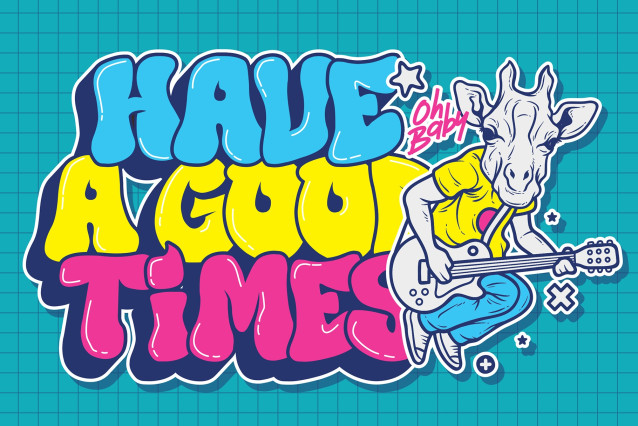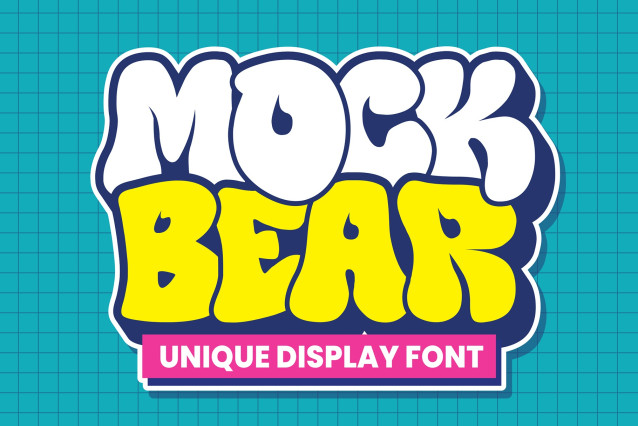
Mock Bear Font
Mock Bear Font – Unique Display Font was created: a bold, allcaps font that stands out with distinctive shapes and a powerful presence. With multilingual support and complete file formats, this unique display font is the perfect tool for modern branding, logos, posters, and creative projects.
Unique Display Font with Allcaps Power
Mock Bear is designed entirely in allcaps, giving every word a bold and confident look. This unique display font features sharp angles, striking proportions, and creative letterforms that grab attention instantly. The allcaps construction makes it ideal for headlines, covers, and branding projects that require maximum visibility.
If you want your designs to carry strength and originality, Mock Bear is the unique display font that delivers impact without compromise.